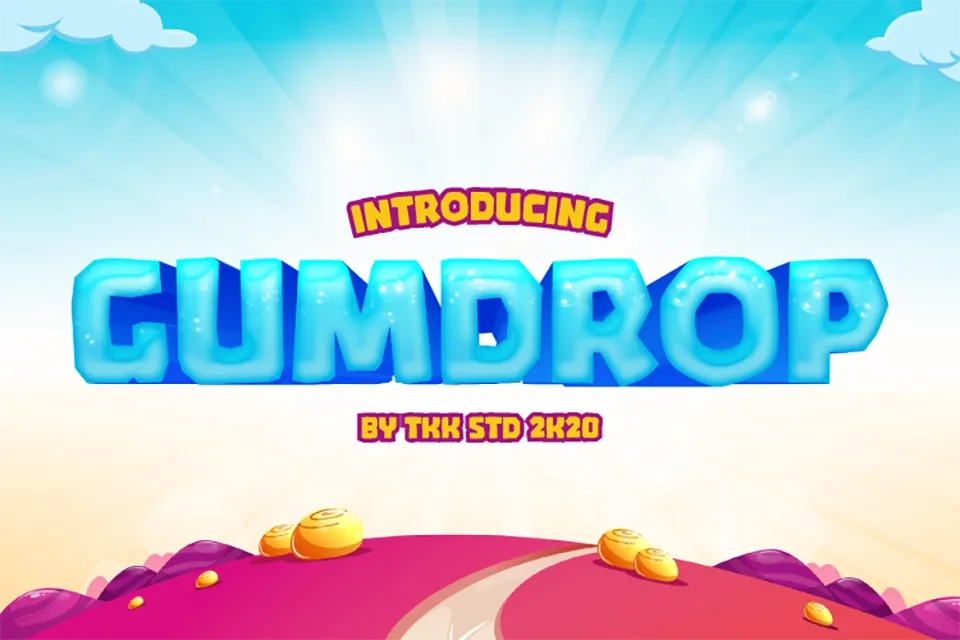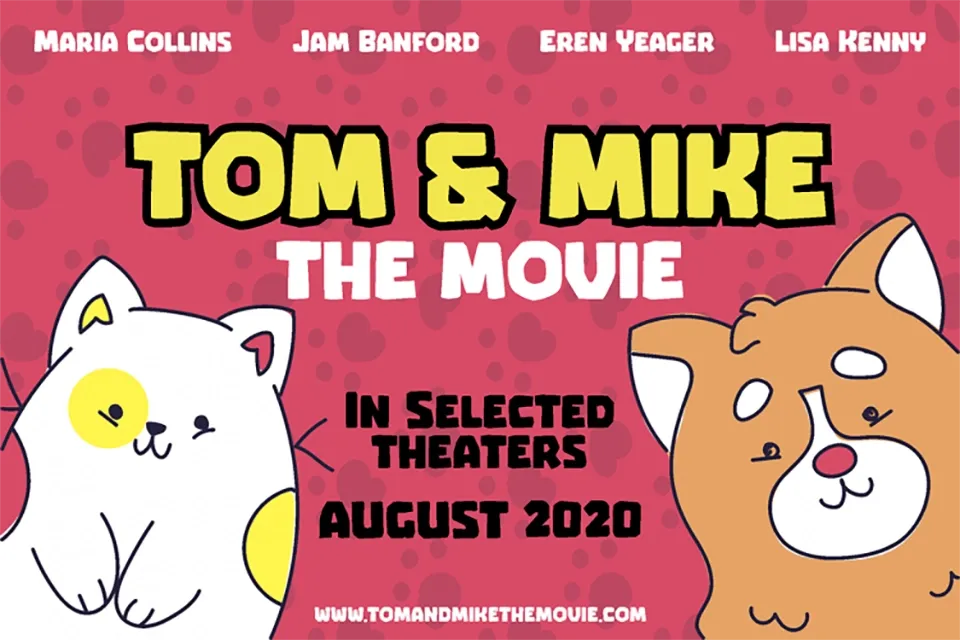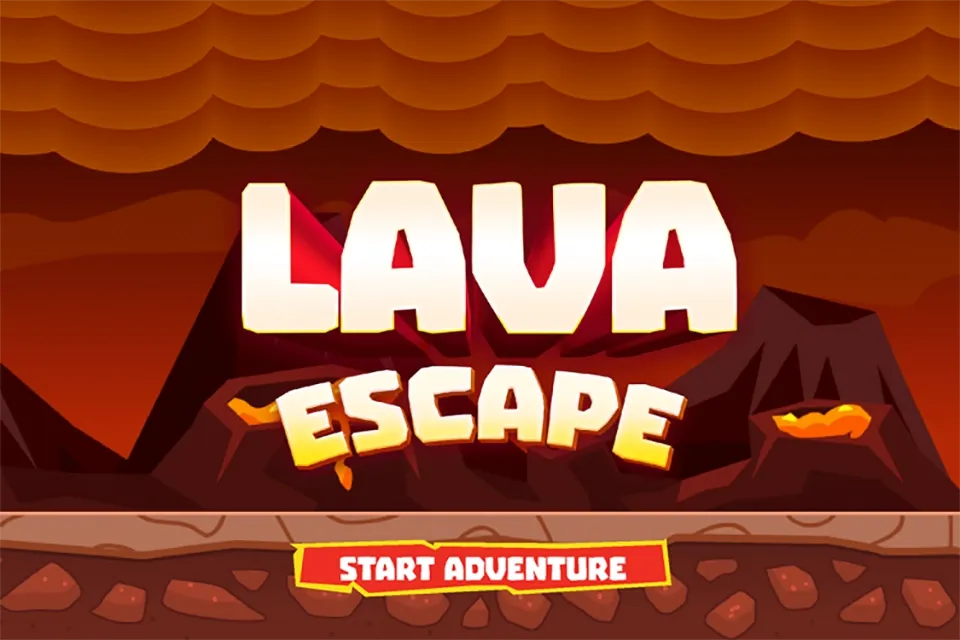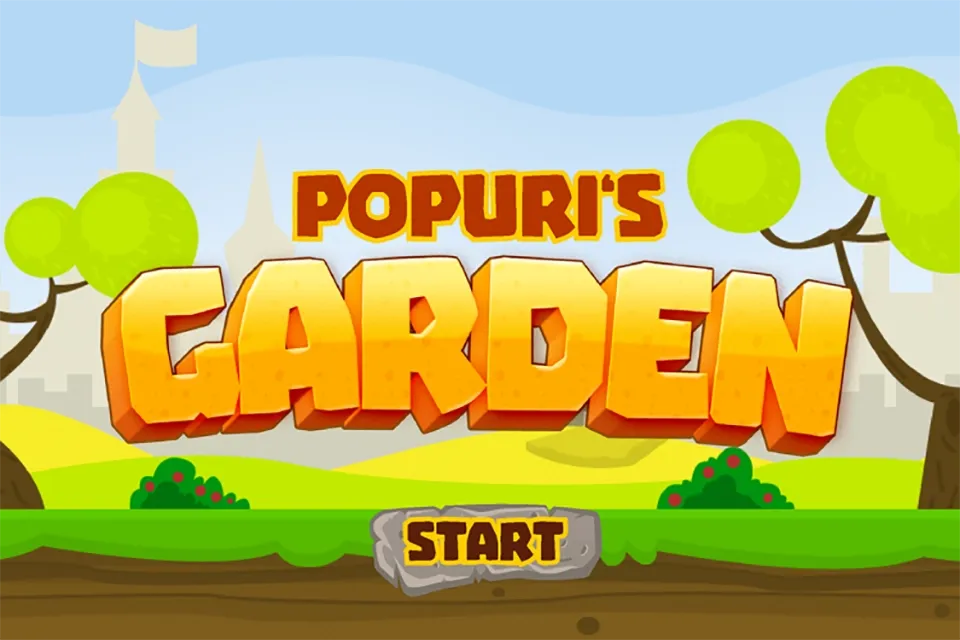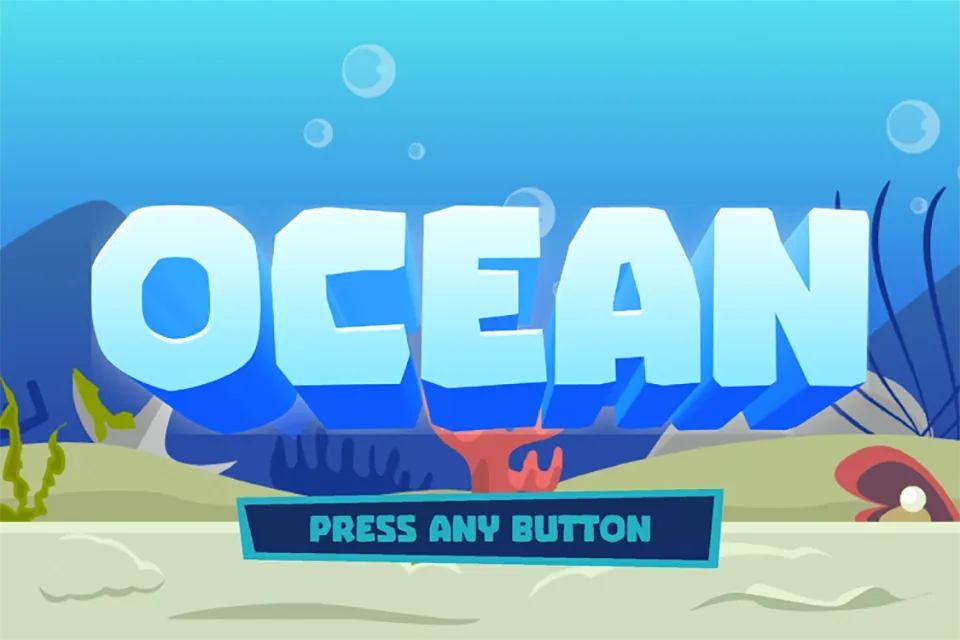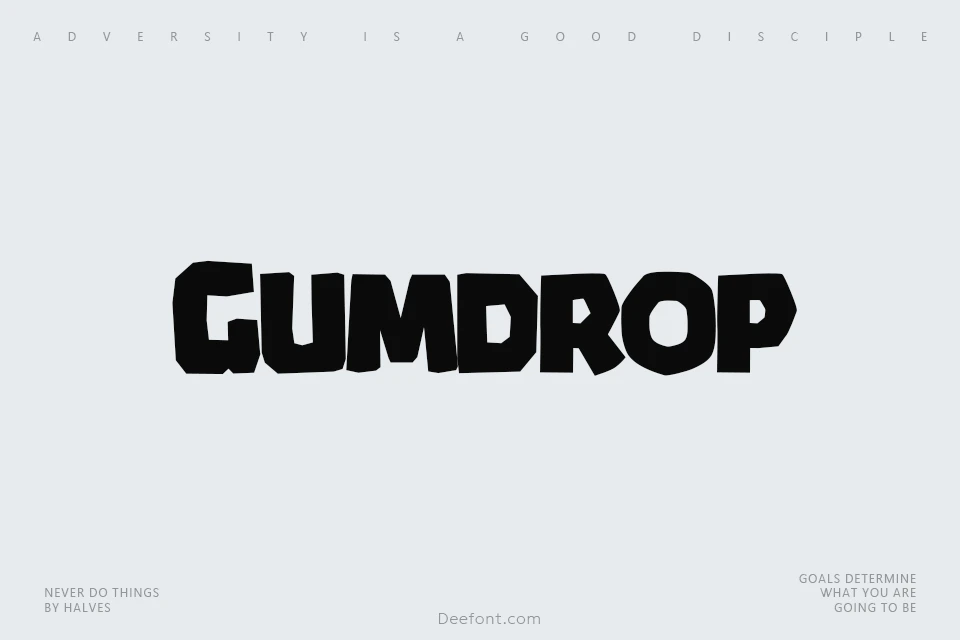
Gumdrop Font
Gumdrop Font is a vibrant, bubbly typeface that injects energy and joy into projects. Its rounded edges and candy-inspired design make it perfect for gaming, playful branding, and whimsical digital creations. Ideal for game titles, promotional materials, and social media graphics, this font adds personality and charm. With a polished structure and lively aesthetic, Gumdrop is versatile across platforms. It brings a fun yet professional touch, instantly grabbing attention and delivering messages in a cheerful, engaging way. Incorporating Gumdrop into your designs ensures a playful yet impactful visual experience.